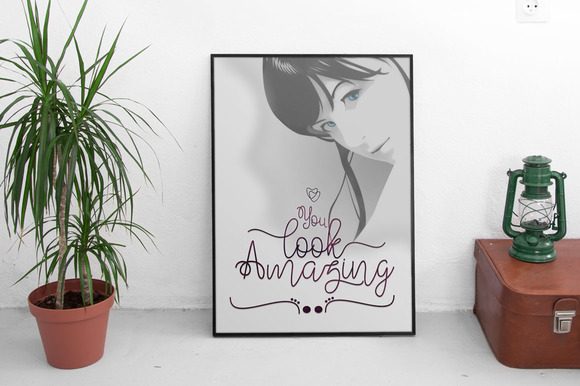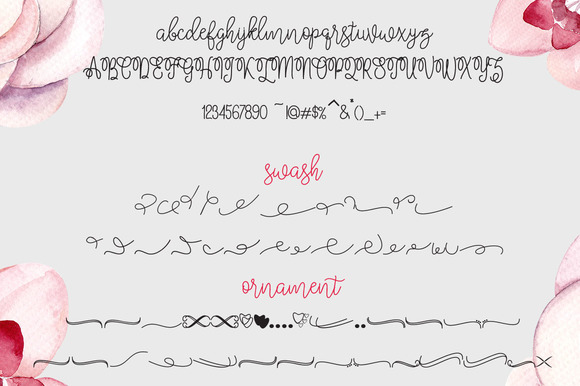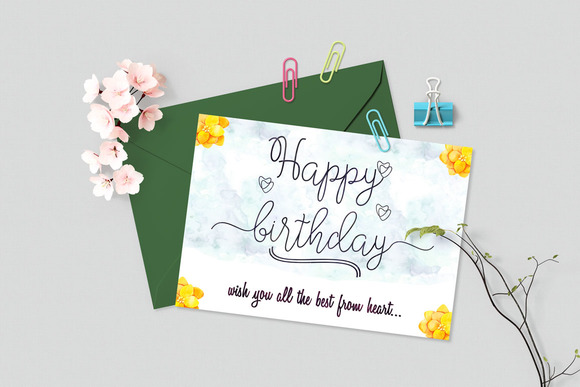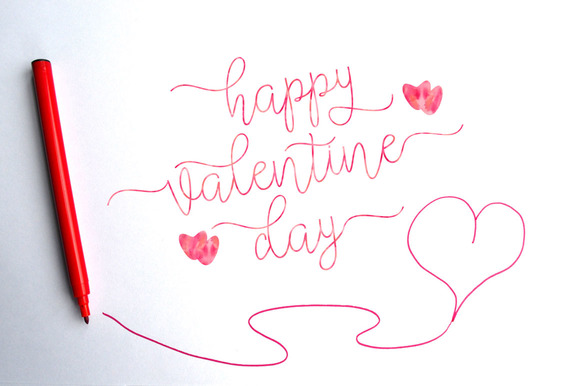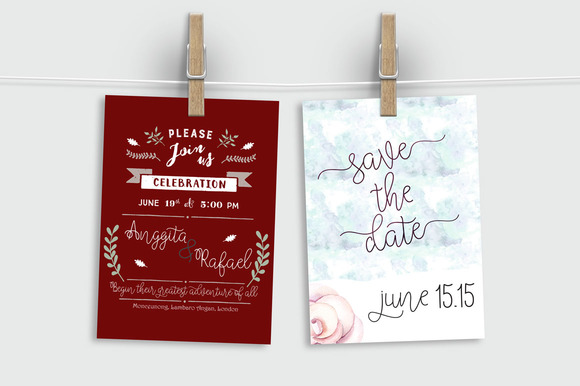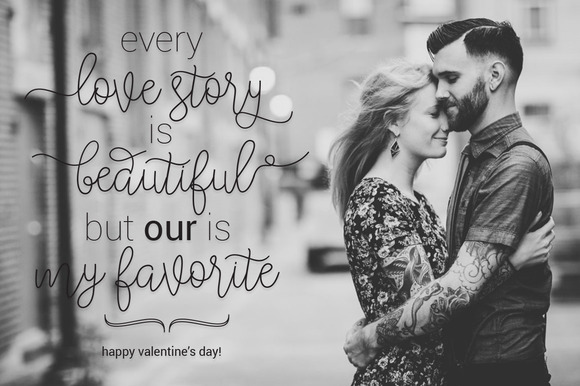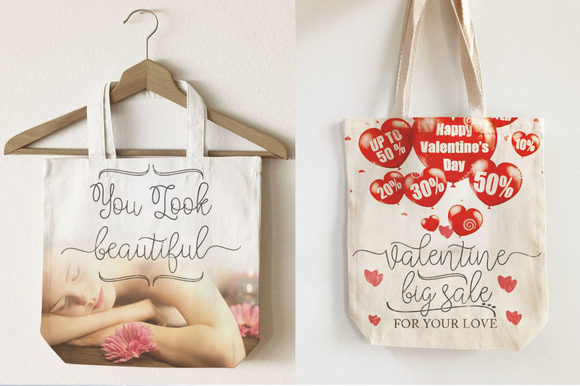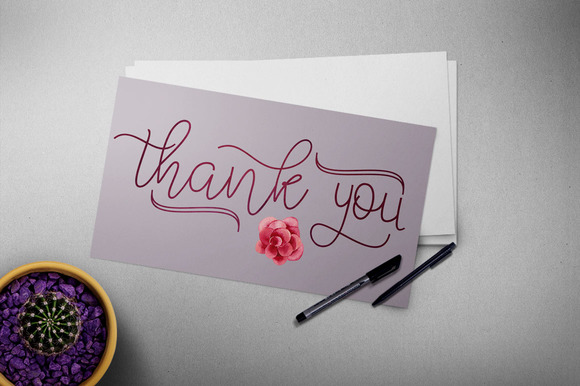
Bralyn Font
About Bralyn Font
Bralyn Monoline Script is a new modern calligraphy script font. It has a classic and elegant touch and can be used for various purposes such as headings, logos, invitations, t-shirt designs, greeting cards, posters, labels, book covers, brochures, and much more.